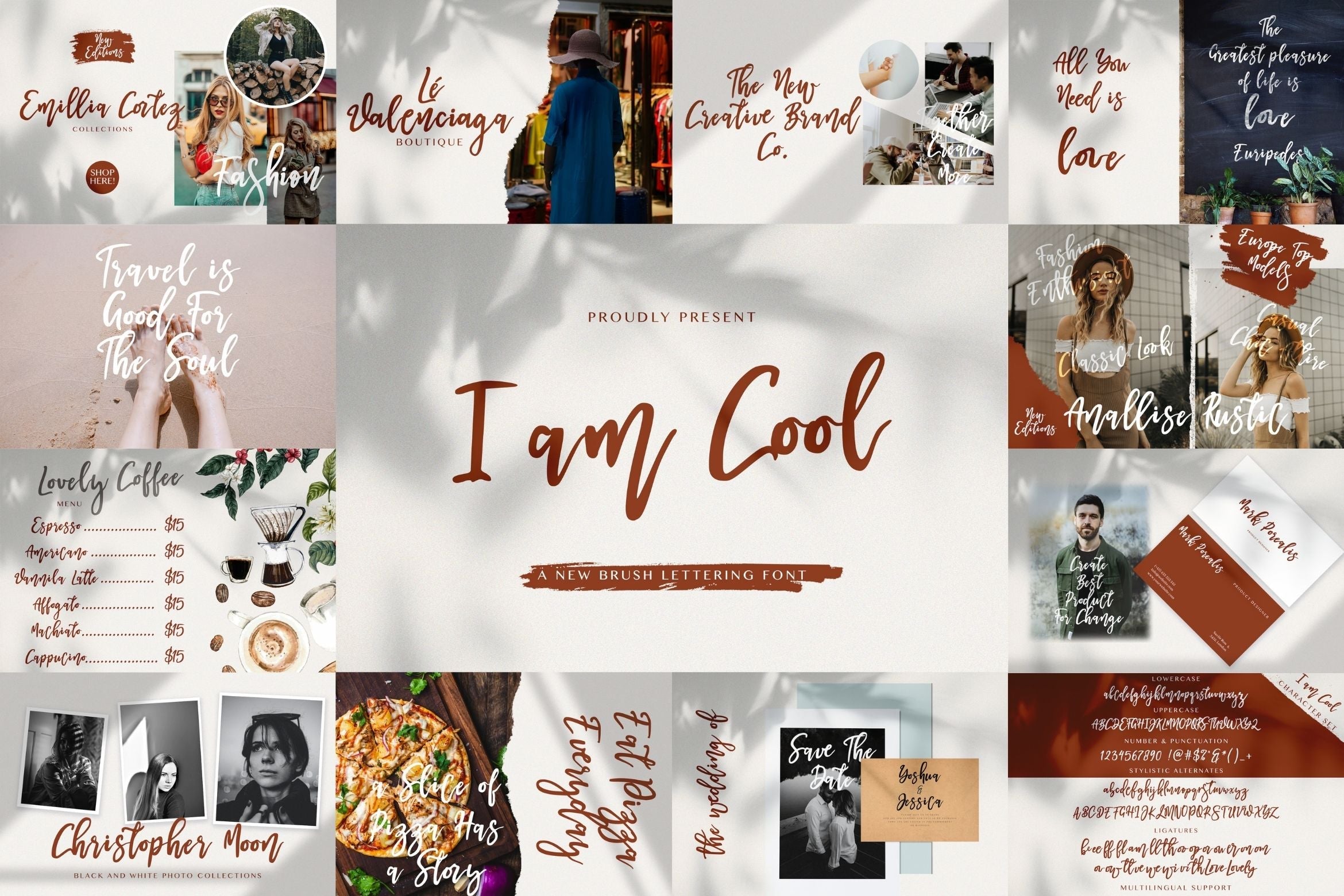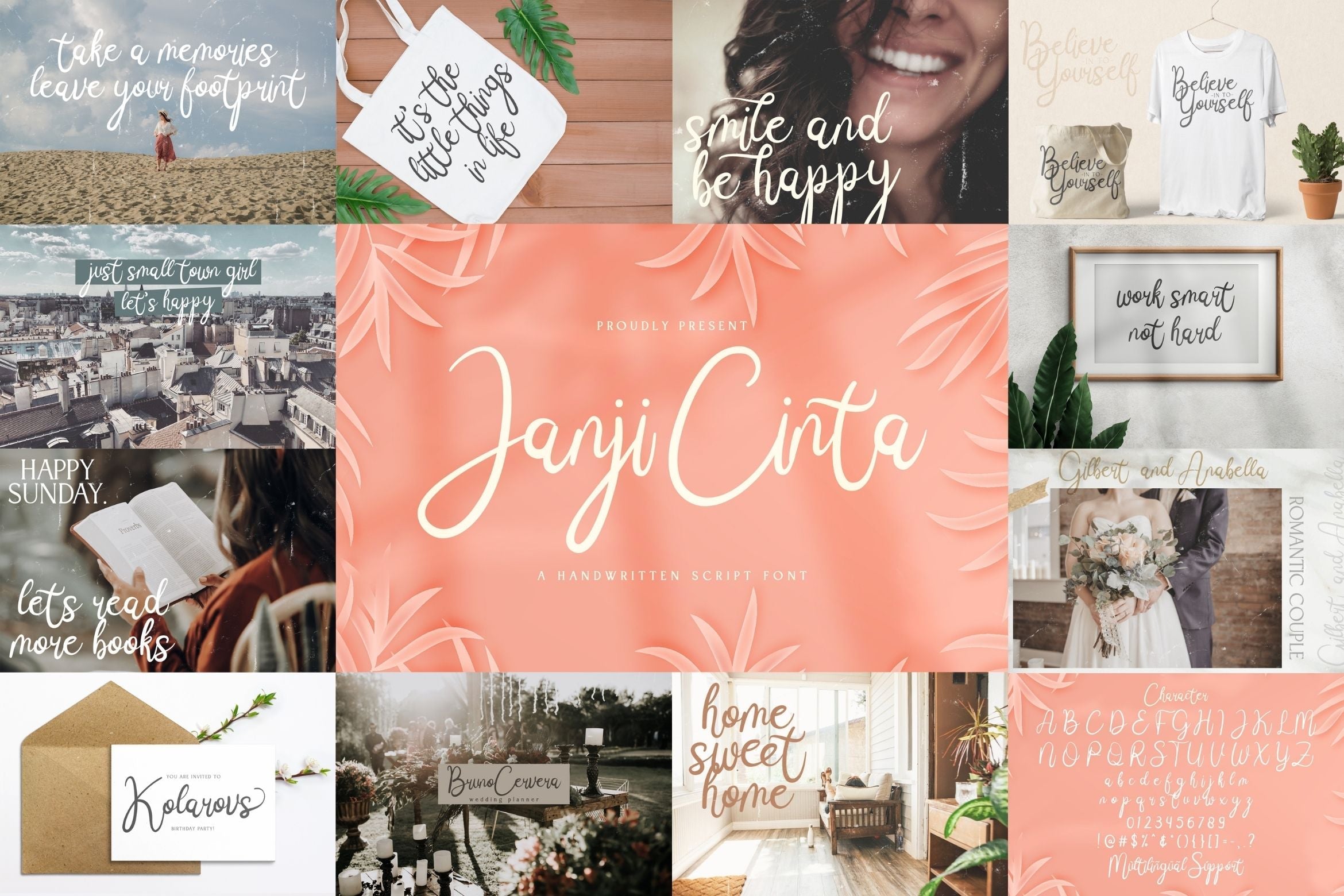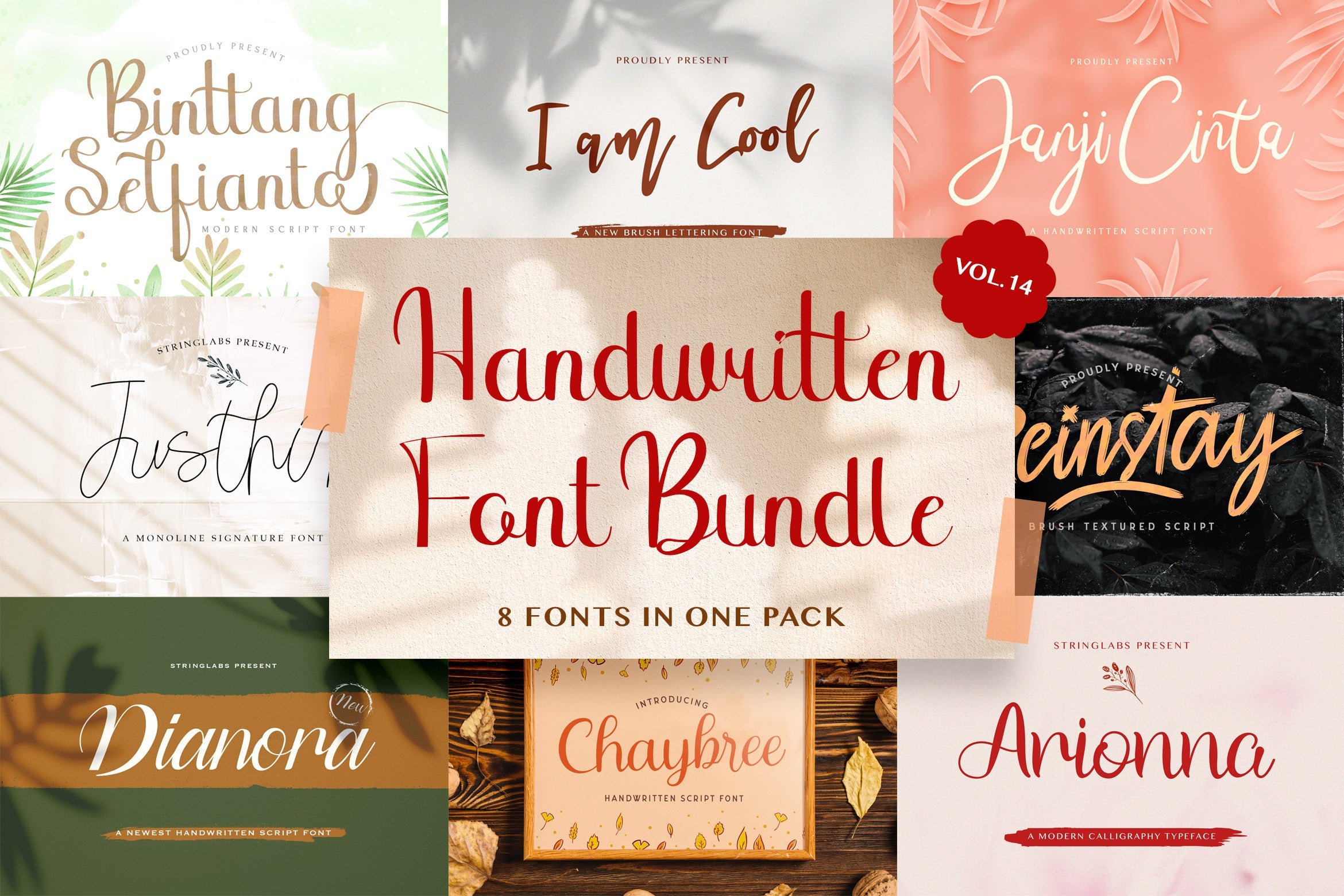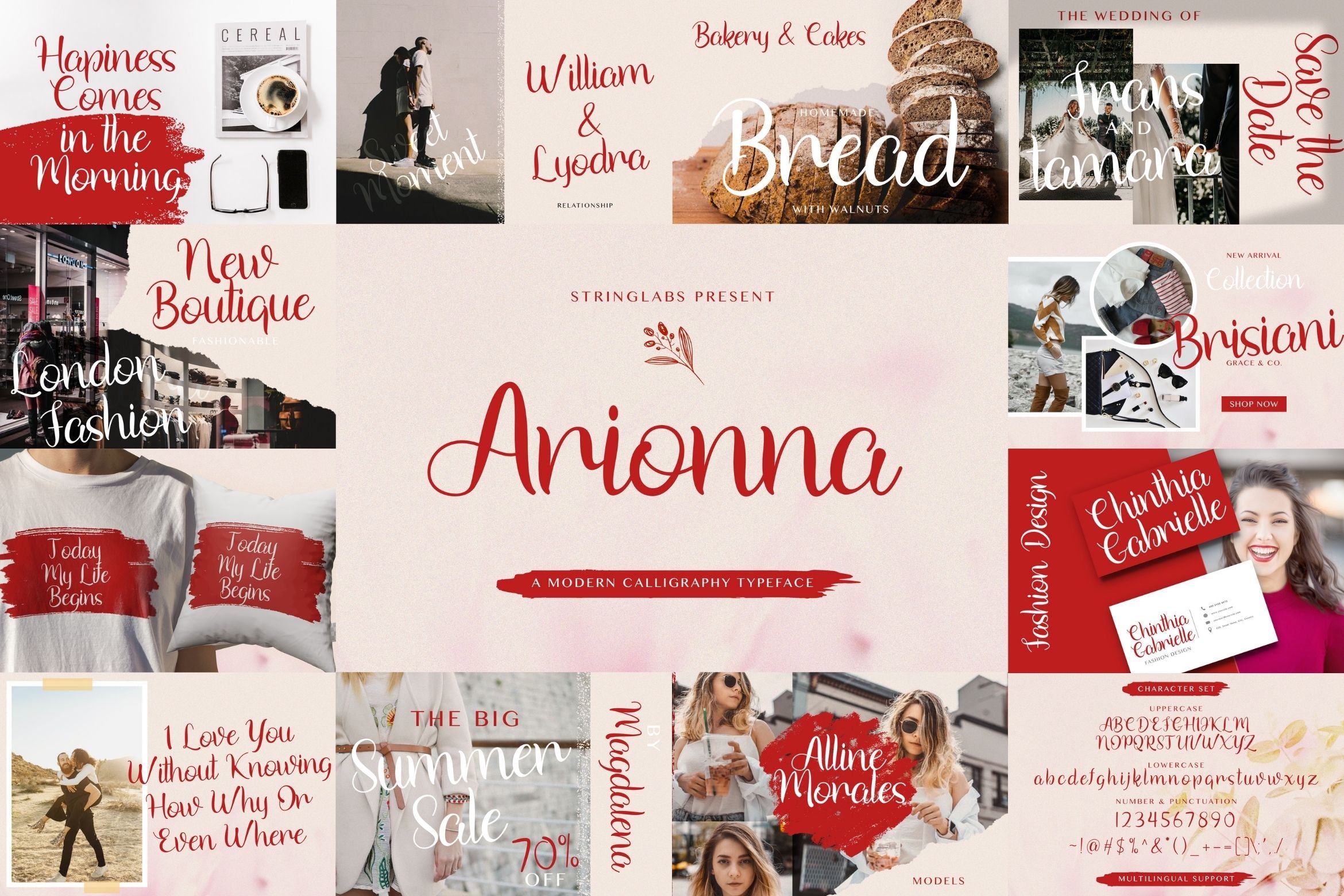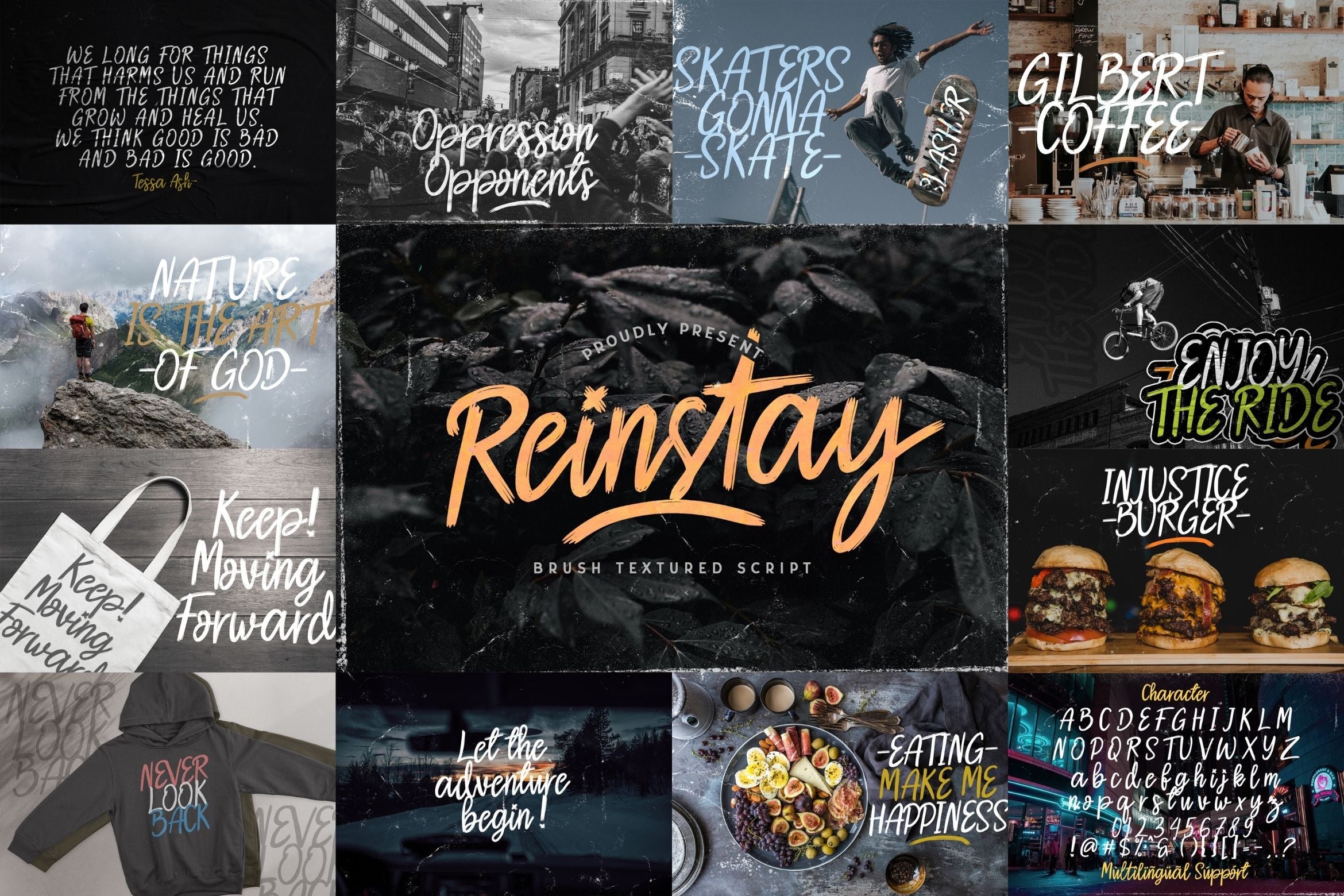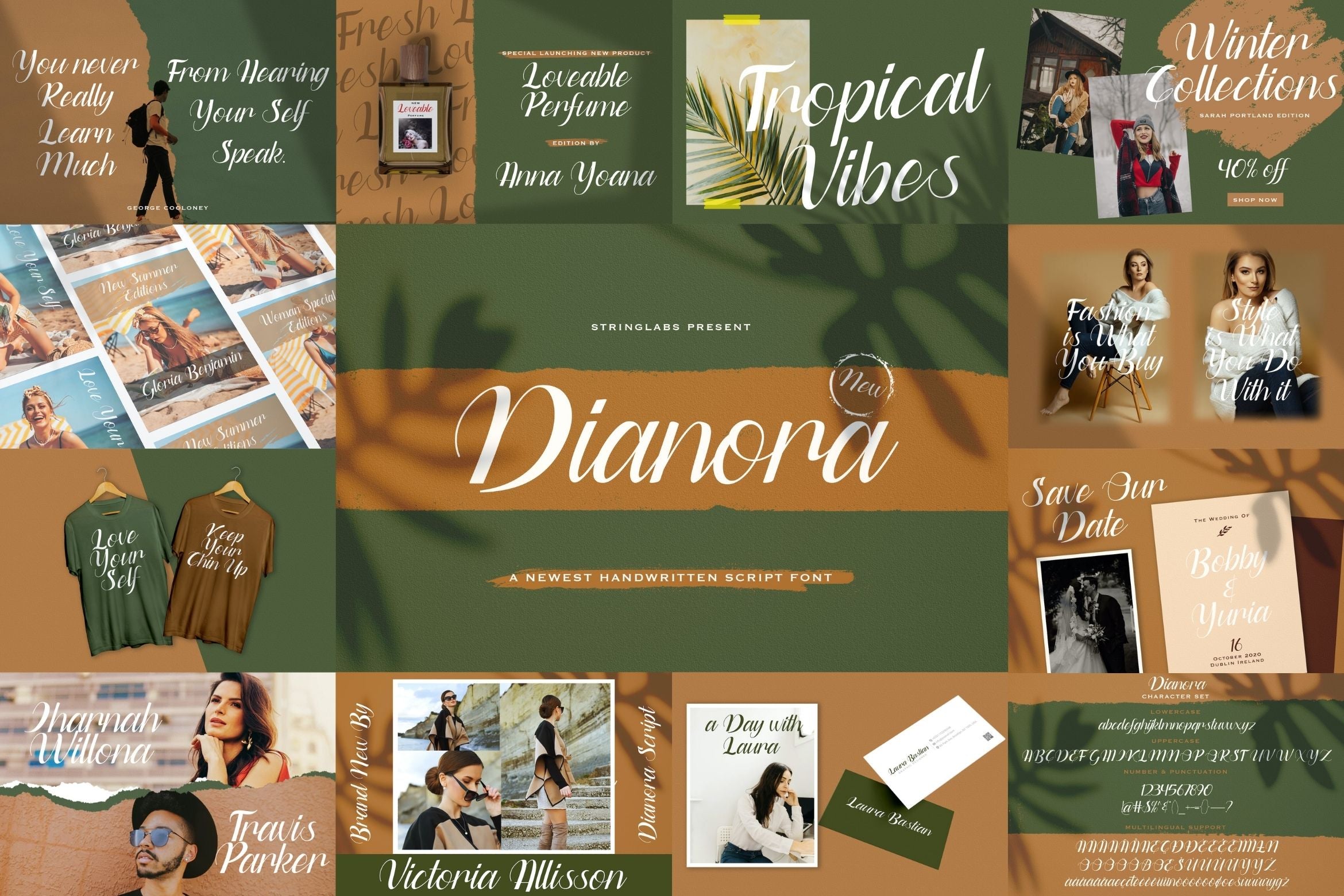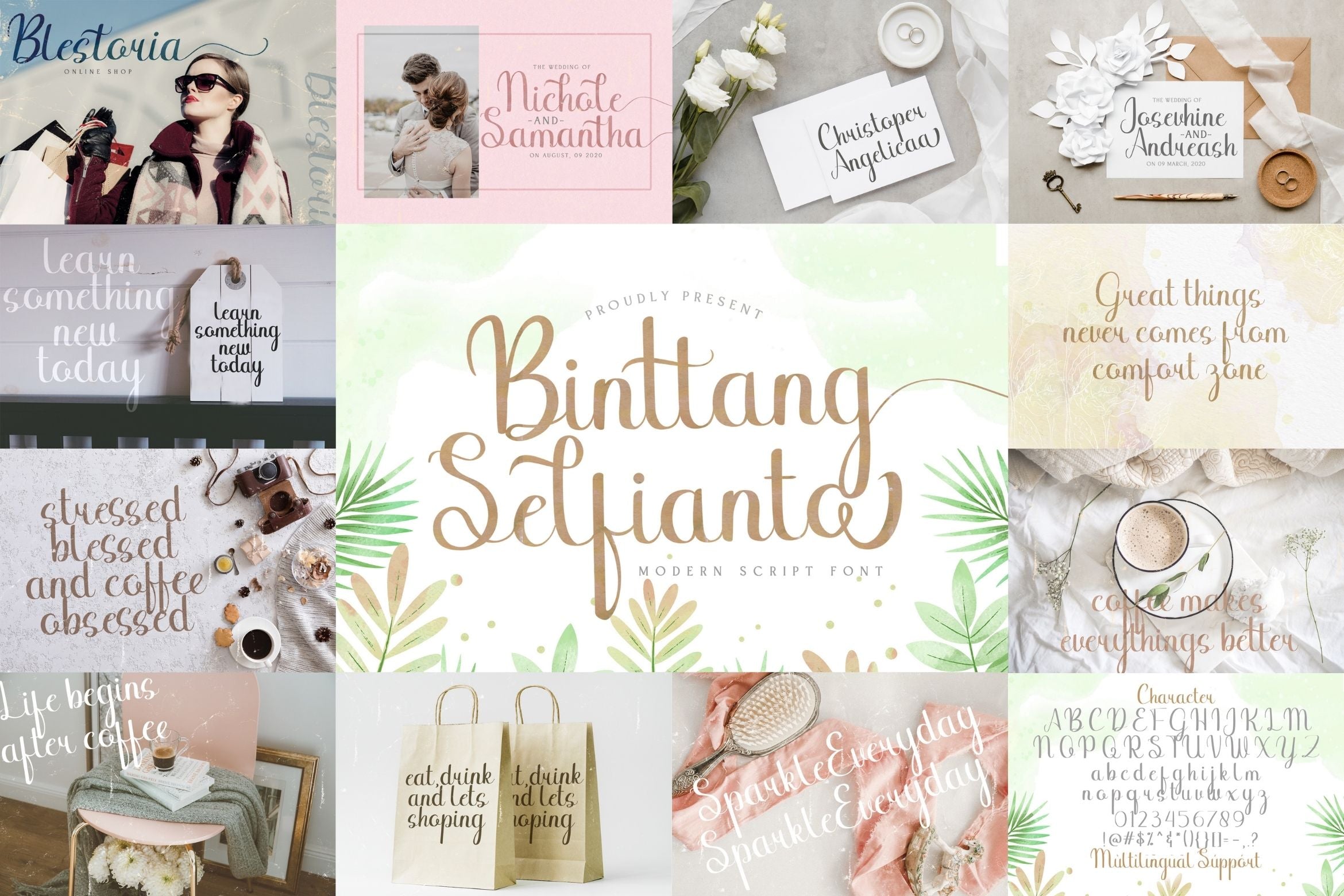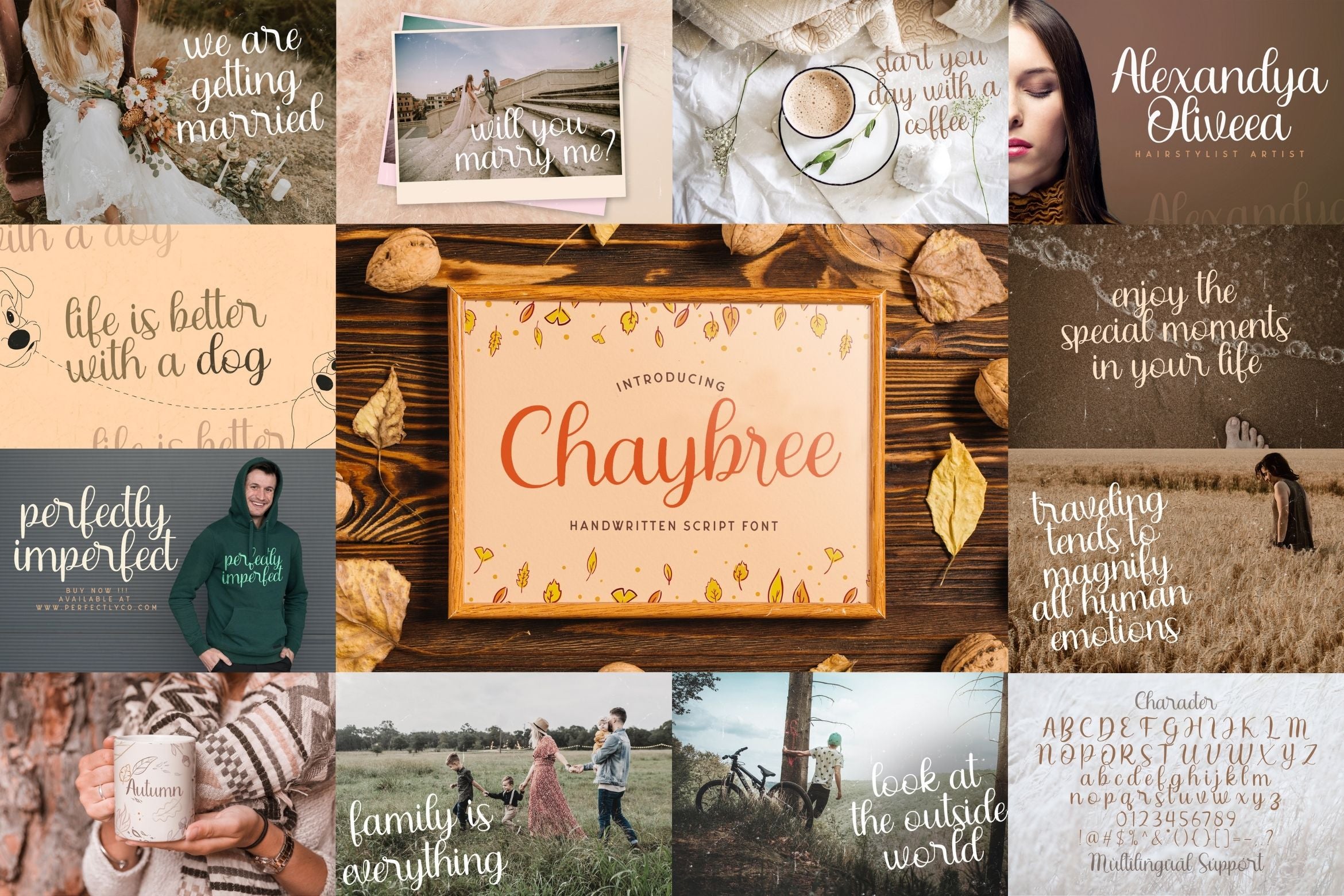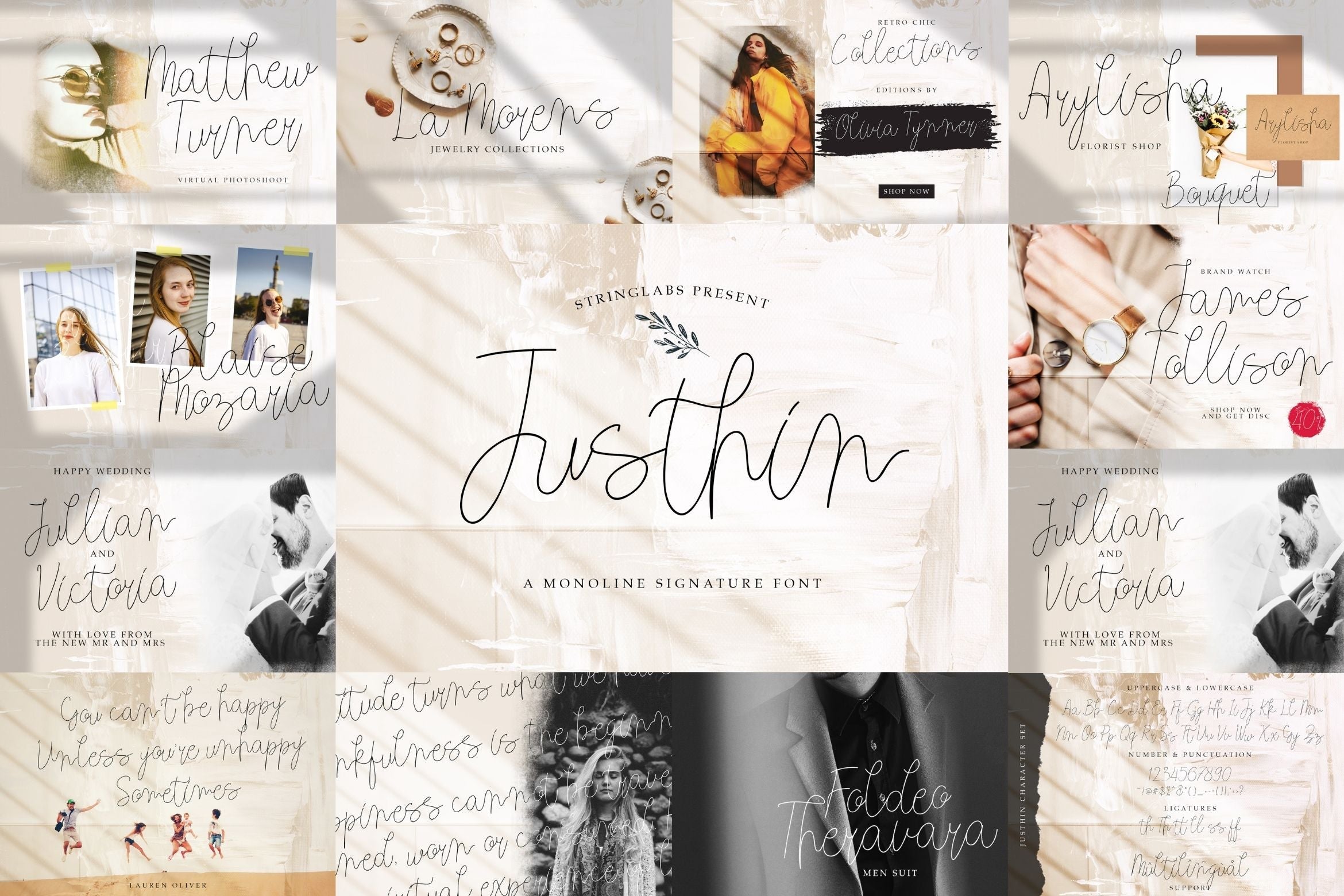
Handwritten Font Bundle Vol 14
About Handwritten Font Bundle Vol 14
Handwritten Font Bundle Vol 14 is a delicate, elegant and flowing handwritten font. This font bundle contains 8 high quality handwritting script font, it will look simply magical in a wide range of design projects, and also that will look particularly adept when used in logos, branding, packaging design, and much more. It has beautiful and well balanced characters and as a result, it matches a wide pool of designs. Add it to your most creative ideas and notice how it makes them come alive! FONTS INCLUDED : 1. Binttang Selfianto 2. Reinstay 3. Janji Cinta 4. I am Cool 5. Justhin 6. Dianora 7. Arionna 8. Chaybree Fonts available in format : OTF, TTF, WOFF, WOFF2